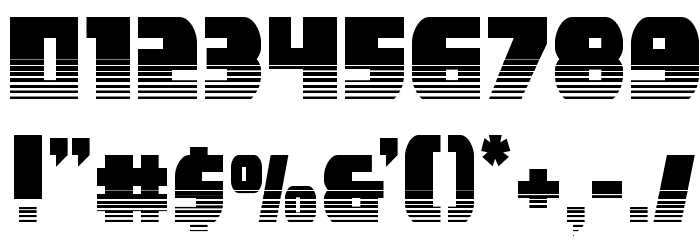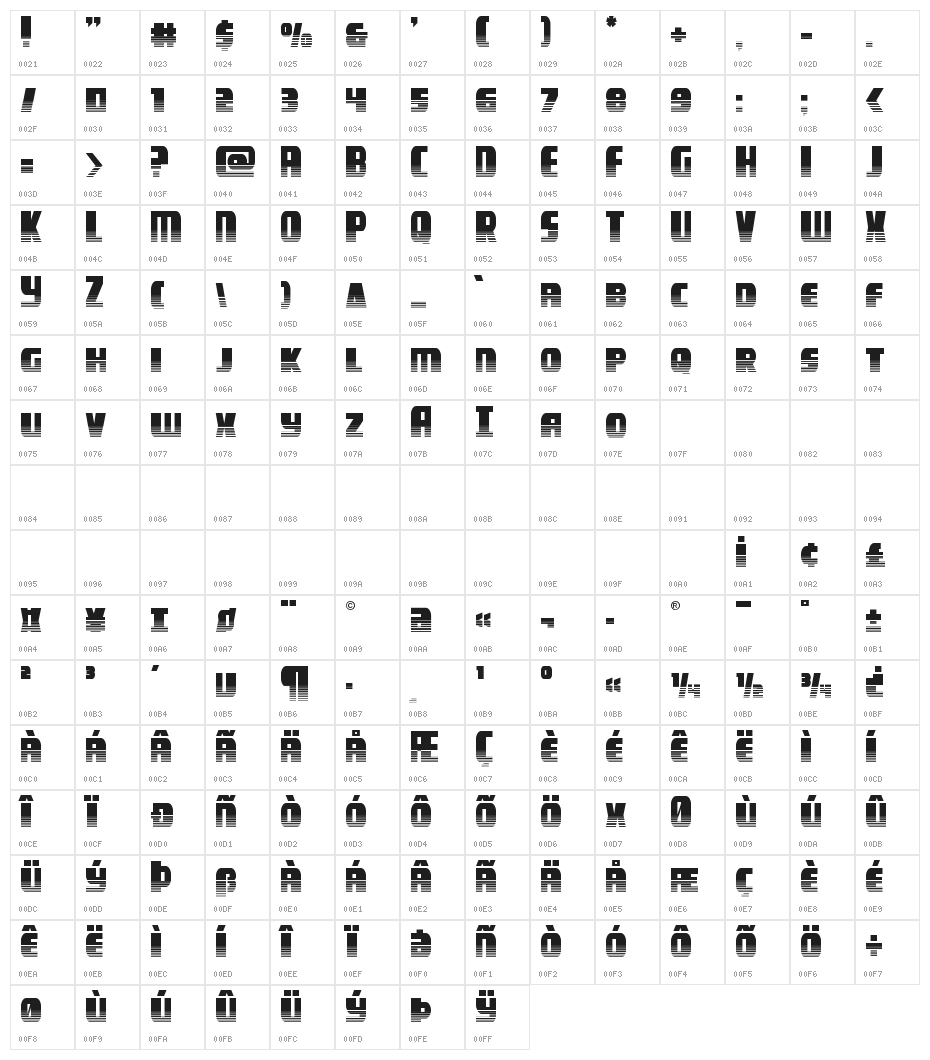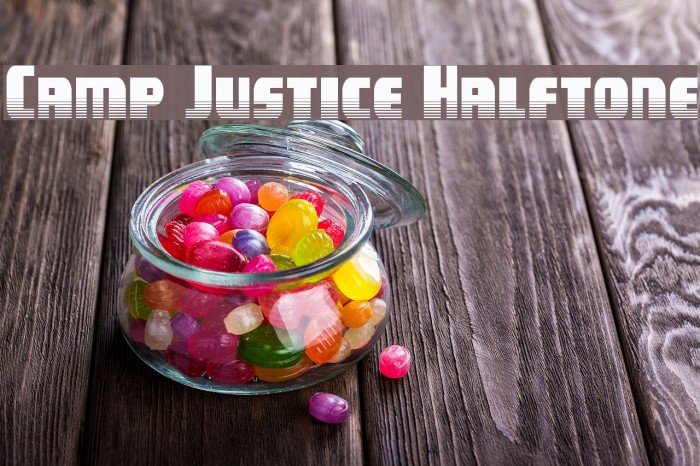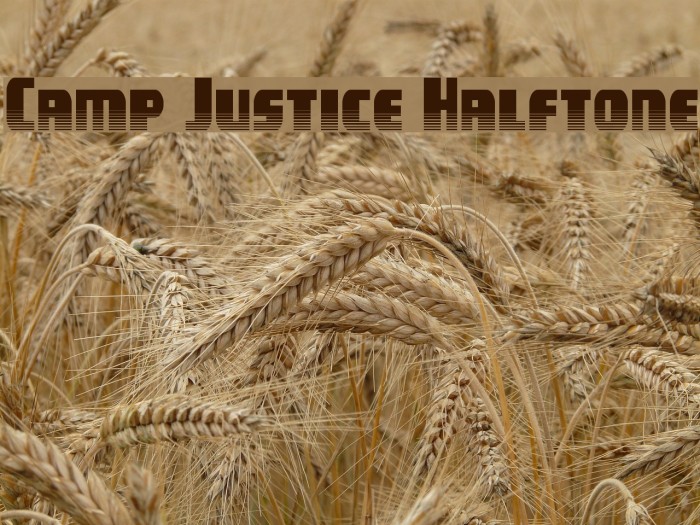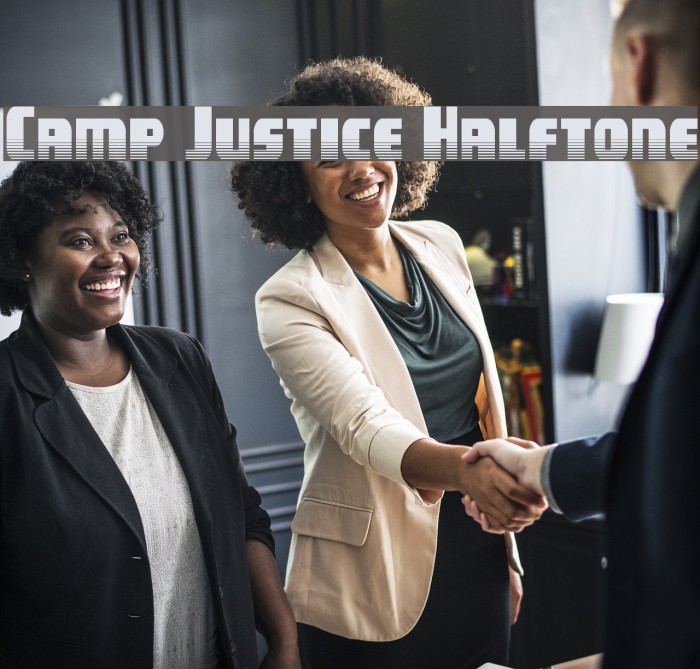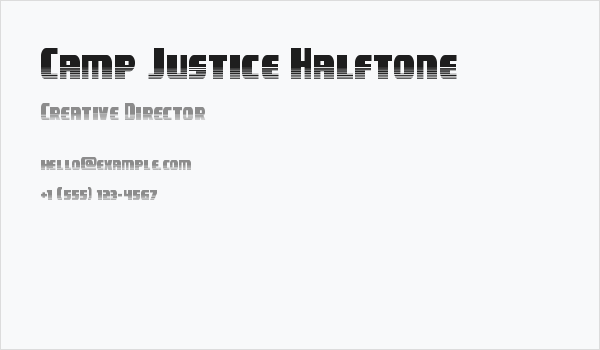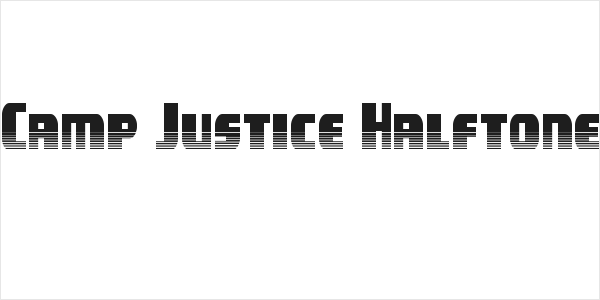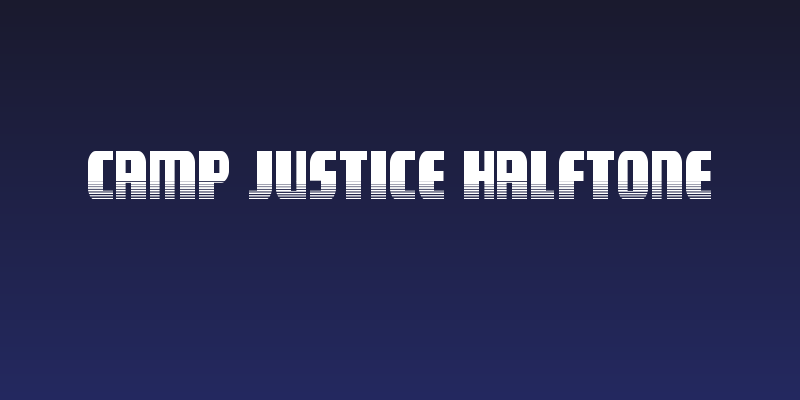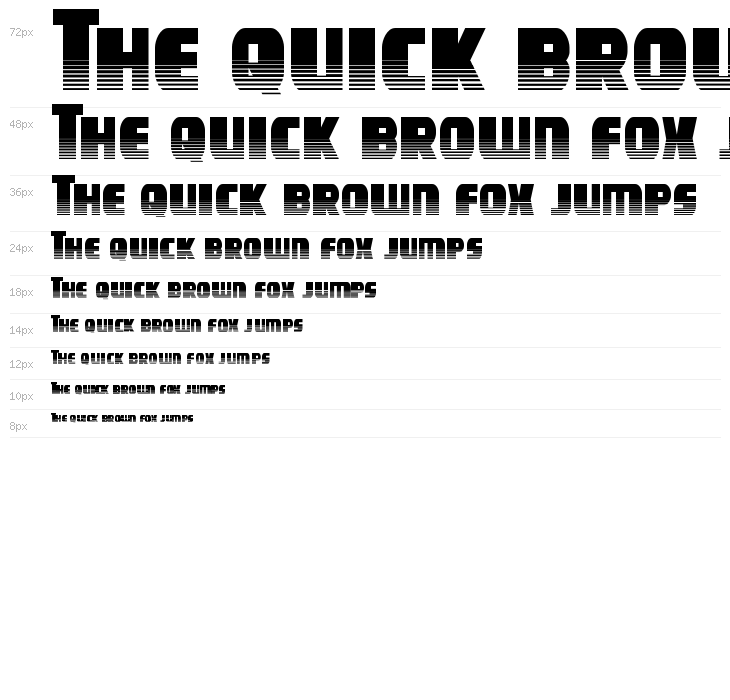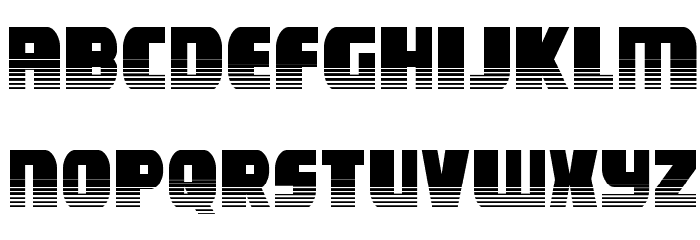
Camp Justice Halftone Font
Camp Justice Halftone Description
This font features a bold, geometric style with a distinctive halftone pattern that gives it a unique, modern appearance. The characters are constructed with solid black upper sections that transition into horizontal lines, creating a gradient effect. This design choice adds depth and visual interest, making it stand out in any design context. The uppercase and lowercase letters share a consistent style, while the numerals and special characters maintain the same halftone effect, ensuring uniformity across all text elements. The font's boldness and decorative elements make it ideal for eye-catching designs.